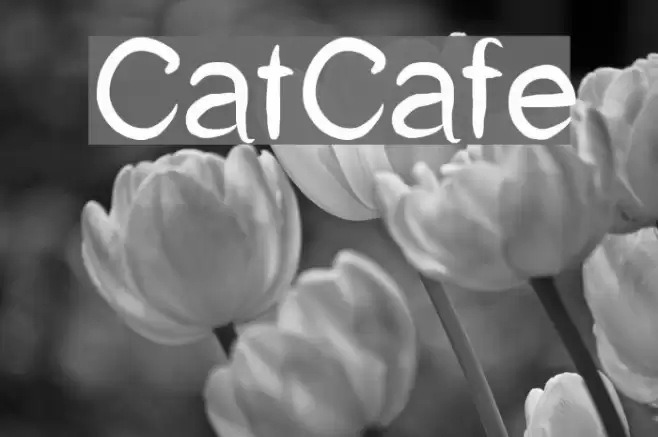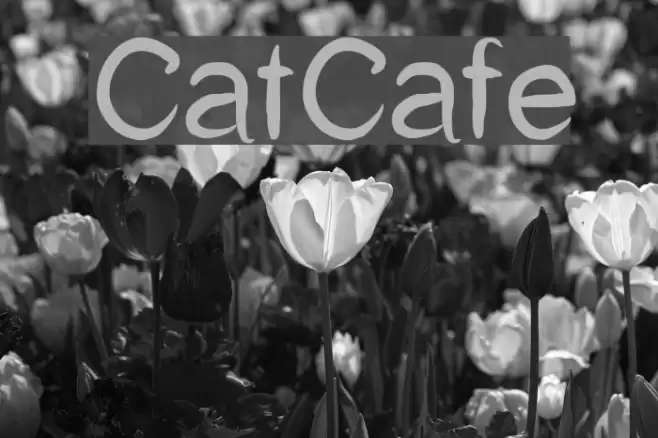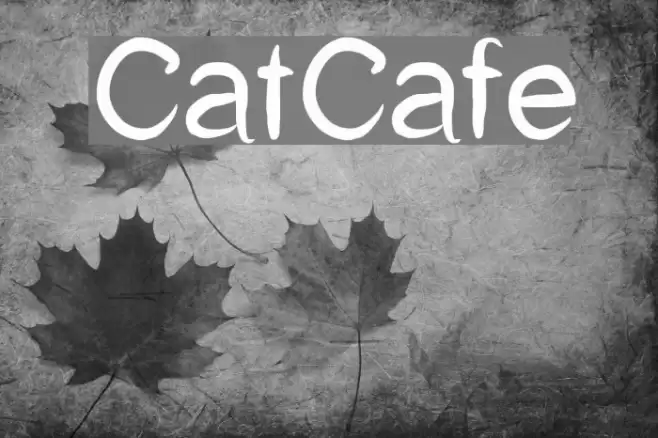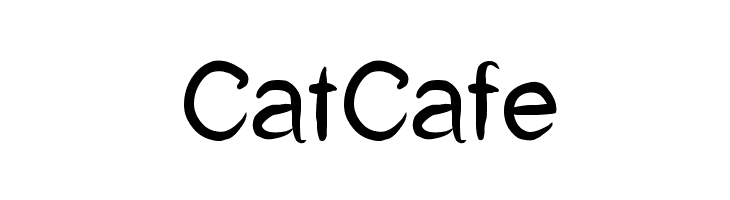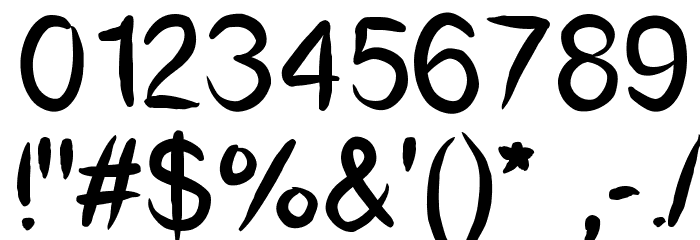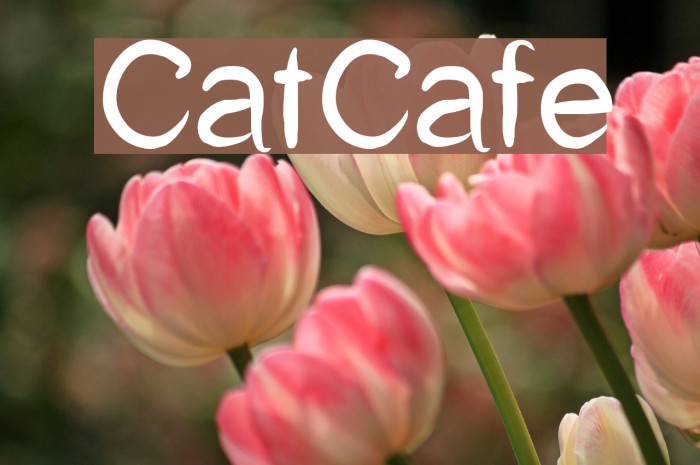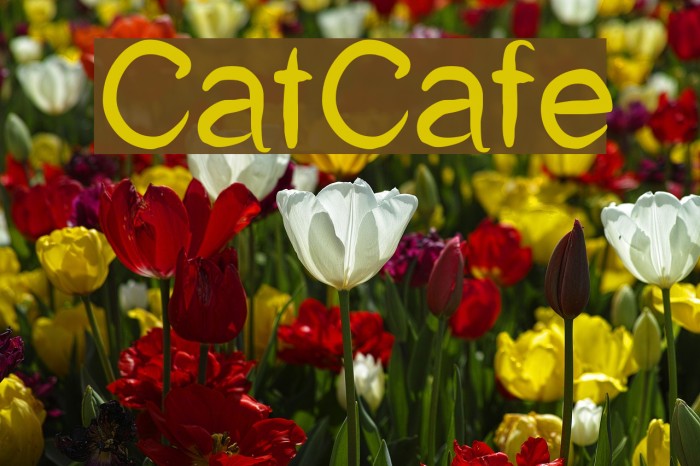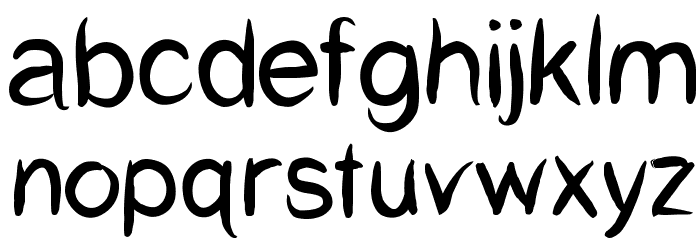
CatCafe Font
CatCafe Description
This font features a playful and casual handwritten style, characterized by its smooth curves and slightly irregular strokes that give it a friendly and approachable feel. The letters are bold and rounded, with a consistent thickness that maintains readability while adding a touch of whimsy. The uppercase and lowercase letters complement each other well, and the numerals are clear and distinct. Special characters are included, maintaining the same playful aesthetic. This font is ideal for projects that require a personal touch or a fun, informal vibe.
A playful, handwritten font with smooth curves and bold strokes from Handwritten fonts.
- Proposed Projects: Ideal for children's books, greeting cards, cafe menus, and playful branding.
- Overall Style: Casual, Playful
- Use Case: Headlines, Logos, Informal Text